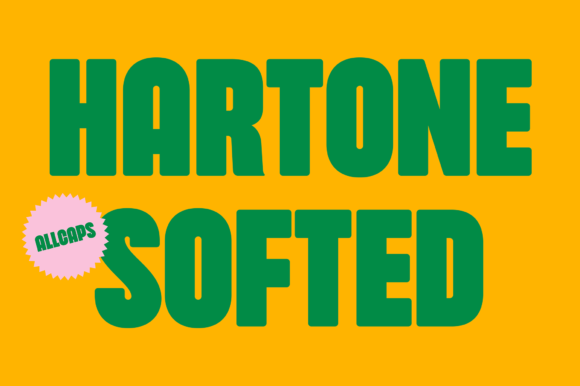
Hartone Softed Font: Elevate Your Designs with a Cool, Bold, and Thick Lettered Display Font
In the world of typography, fonts play a crucial role in conveying messages, expressing emotions, and creating visual identities. Among the numerous fonts available, Hartone Softed stands out as a cool, bold, and thick lettered display font that can elevate any design project. In this article, we’ll explore the features, benefits, and uses of Hartone Softed, and why it’s an incredible asset to your font library.
What is Hartone Softed Font?
Hartone Softed is a modern, sans-serif display font designed to make a statement. Its bold and thick lettering gives it a unique and edgy look, making it perfect for attention-grabbing headlines, titles, and captions. The font’s clean and minimalist design ensures that it remains legible, even at large sizes.
Key Features of Hartone Softed Font
- Bold and Thick Lettering: Hartone Softed’s bold and thick lettering makes it perfect for creating eye-catching headlines and titles.
- Clean and Minimalist Design: The font’s clean and minimalist design ensures that it remains legible, even at large sizes.
- Versatile: Hartone Softed can be used for a wide range of design projects, from posters and flyers to digital media and branding.
- Easy to Read: Despite its bold and thick lettering, Hartone Softed remains easy to read, making it perfect for use in titles, headings, and captions.
Benefits of Using Hartone Softed Font
Hartone Softed offers several benefits to designers, including:
- Instant Recognition: The font’s bold and thick lettering ensures that your message gets noticed, making it perfect for attention-grabbing headlines and titles.
- Improved Legibility: Hartone Softed’s clean and minimalist design ensures that it remains legible, even at large sizes.
- Enhanced Creativity: The font’s versatility and unique design make it an excellent choice for creative projects, allowing designers to experiment with different styles and layouts.
- Time-Saving: With Hartone Softed, designers can quickly create professional-looking designs without spending hours on typography.
Use Cases for Hartone Softed Font
Hartone Softed is a versatile font that can be used for a wide range of design projects, including:
- Posters and Flyers: The font’s bold and thick lettering makes it perfect for creating eye-catching posters and flyers.
- Digital Media: Hartone Softed can be used for digital media, such as social media graphics, blog posts, and website headers.
- Branding and Identity: The font’s unique design makes it an excellent choice for branding and identity projects, such as logos, business cards, and letterheads.
- Advertising: Hartone Softed’s attention-grabbing design makes it perfect for use in advertisements, such as billboards, magazine ads, and online ads.
Tips and Tricks for Using Hartone Softed Font
Here are some tips and tricks for using Hartone Softed effectively:
- Use it for Headlines and Titles: Hartone Softed is perfect for use in headlines and titles, where its bold and thick lettering can make a statement.
- Experiment with Colors: The font’s clean and minimalist design makes it easy to experiment with different colors and gradients.
- Pair it with Other Fonts: Hartone Softed can be paired with other fonts to create a unique and visually appealing design.
- Adjust the Size and Spacing: Experiment with different sizes and spacing to create a design that is visually appealing and easy to read.
In conclusion, Hartone Softed is a cool, bold, and thick lettered display font that can elevate any design project. Its versatility, legibility, and unique design make it an excellent choice for a wide range of applications, from posters and flyers to digital media and branding. With its numerous benefits and use cases, Hartone Softed is an incredible asset to your font library.